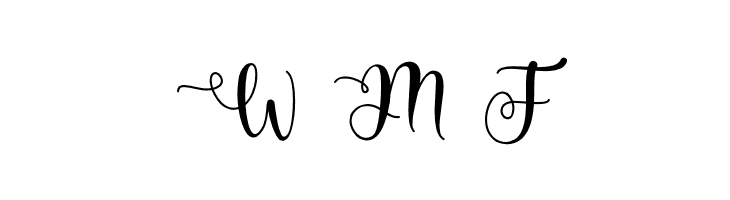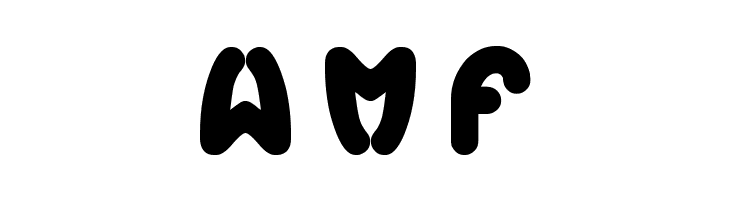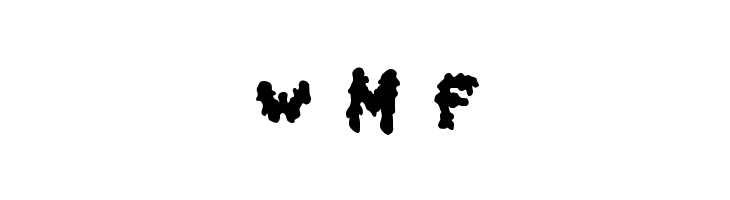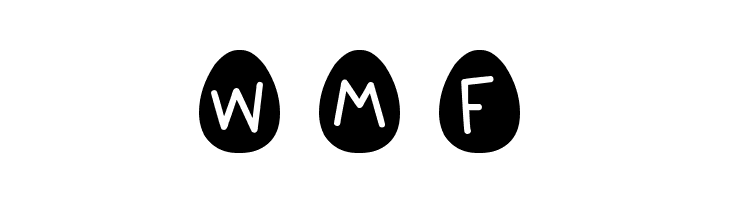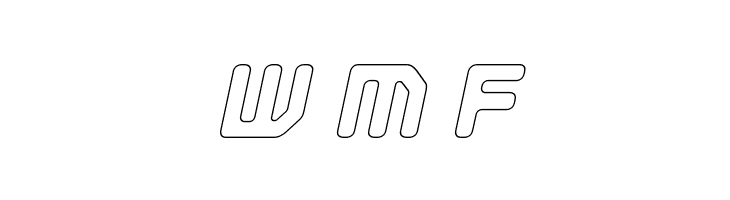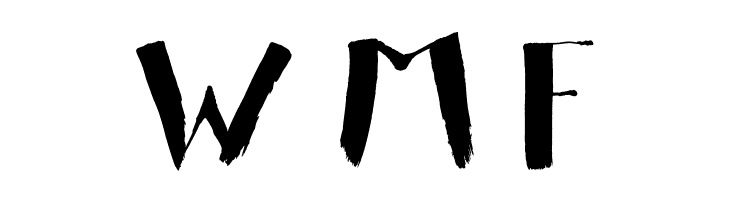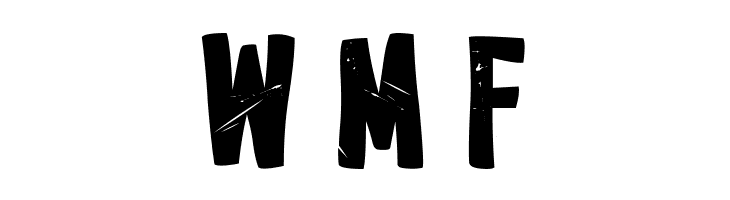
• E4 Digital V2 Hollow Italic
A futuristic, hollow, italic font with a digital-inspired design.
• E4 Digital V2 Italic
A bold, italicized font with a futuristic, digital design.
• E4 Digital V2 Light Italic
A modern, digital-style font with italicized, rounded characters.
• Early Christmas - Personal Use
A whimsical and ornate script font with decorative swirls and playful accents.
• EarlyScare
A bold, irregular font with a dripping, eerie design perfect for horror themes.
• eartheart
• EasterFont St
A playful, egg-shaped decorative font with a hand-drawn style.
• Eastern Brush
A dynamic, brush-style font with bold, expressive strokes.
• EasyDoughDT
A playful, casual handwritten font with irregular strokes.
• Ed Wood Movies
A bold, distressed font with a vintage horror movie poster style.